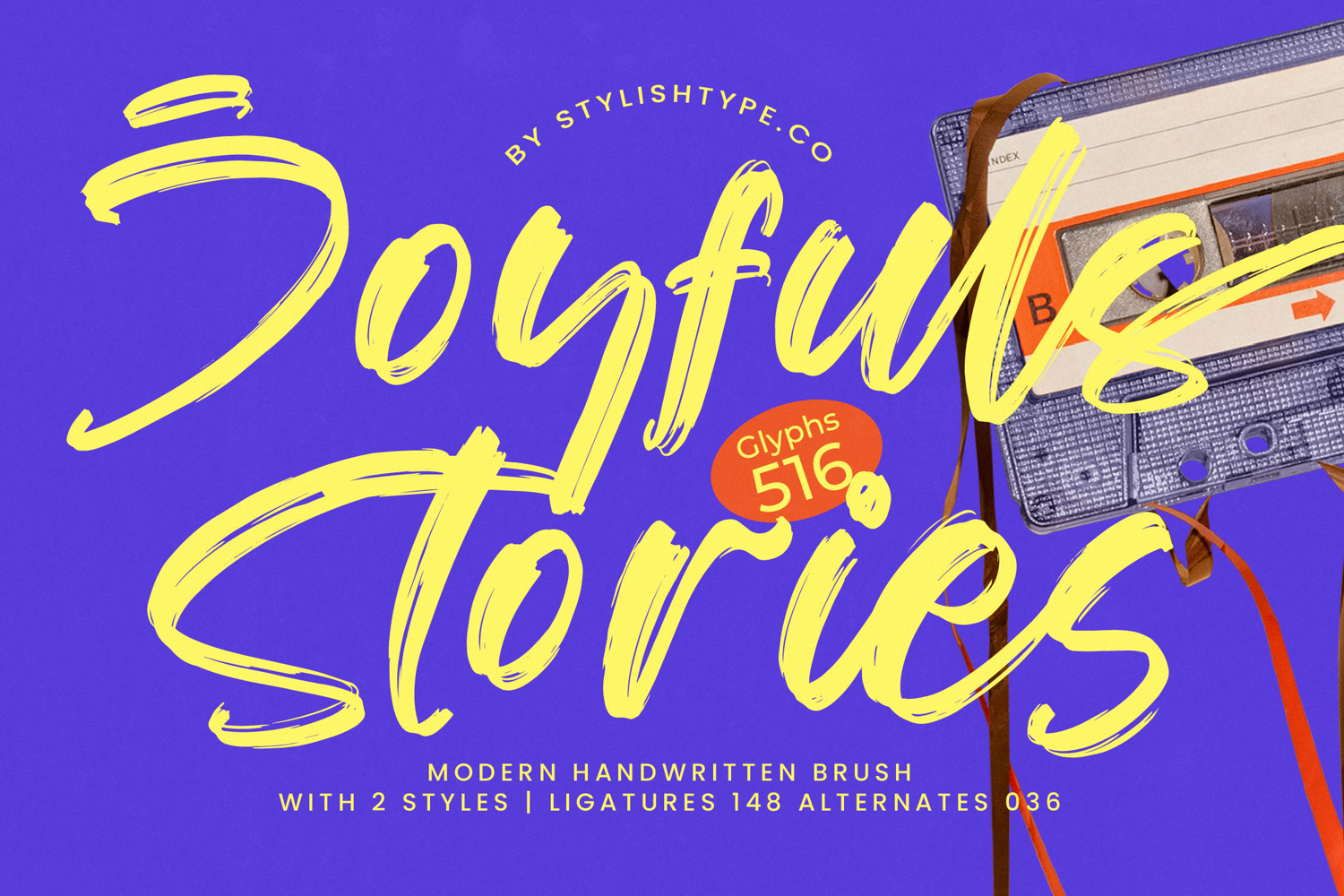
The Joyfuls Stories - Modern Handwritten
Inject immediate personality and unforgettable energy into your design portfolio. The Joyfuls Stories - Modern Handwritten Brush typeface delivers an authentic, high-impact aesthetic reminiscent of hand-painted street art or bold expressive journals. Characterized by its generous, confident strokes and robust, textured flow, this font ensures maximum visual impact while conveying a spontaneous, raw artistic feel. It’s the perfect solution for designers seeking a statement script that immediately commands attention and injects vibrancy into any project.